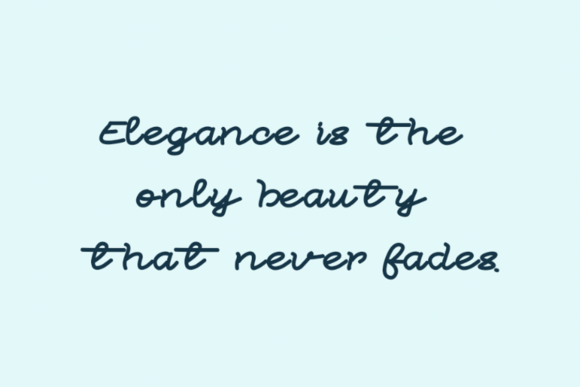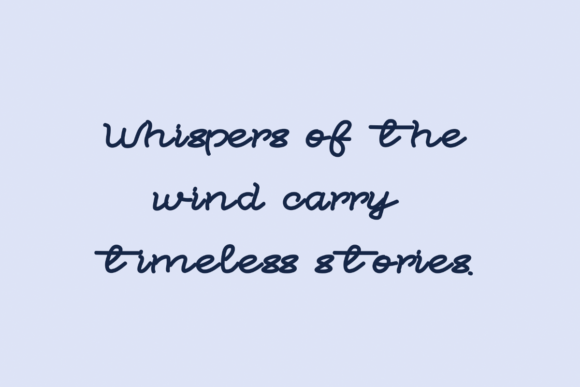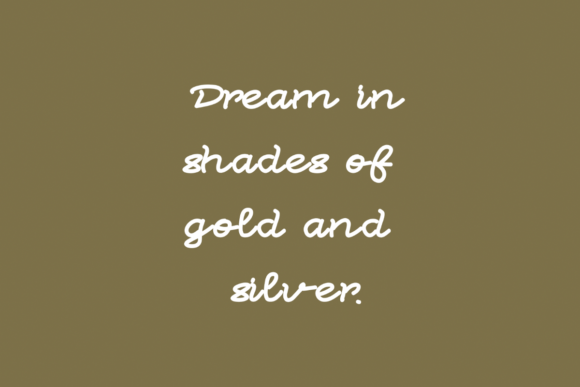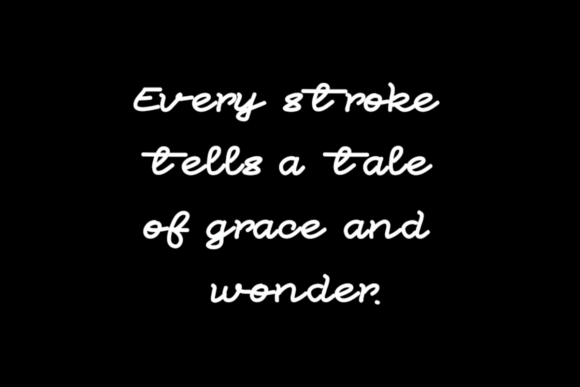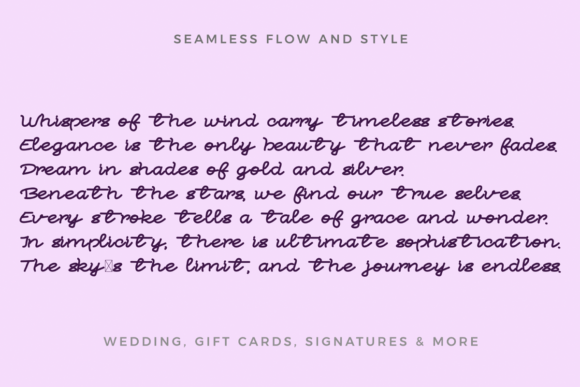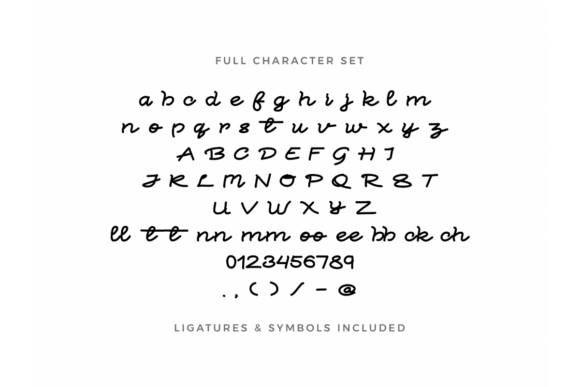
Introduction to Quirks Font Font
Fonts play a crucial role in design, and the Quirks Font font is a typeface that brings both character and versatility to any project. Whether you’re working on a branding project, a website, or a print design, the Quirks Font font offers a unique style that can elevate your work.
Quirks, an extraordinary and distinctive handwritten script font, encapsulates charm and creativity in each curve.
With a hand-lettered finesse, its lovely presentation makes it an irresistible choice for those seeking to infuse an element of uniqueness in their designs Let the enchantingly fluid strokes of Quirks pave the way for a captivating visual impact.
Key Features of Quirks Font Font
Why Choose Quirks Font Font?
The Quirks Font font is more than just a typeface – it’s a design tool that helps you communicate your message with style and clarity. Its unique character set and versatile design make it suitable for a wide range of applications, from elegant invitations to bold headlines.
With its carefully crafted letterforms and balanced proportions, the Quirks Font font ensures readability and visual appeal across all mediums.
What makes Quirks Font font special?
The Quirks Font font stands out with its unique design, exceptional readability, and versatility across various design applications.